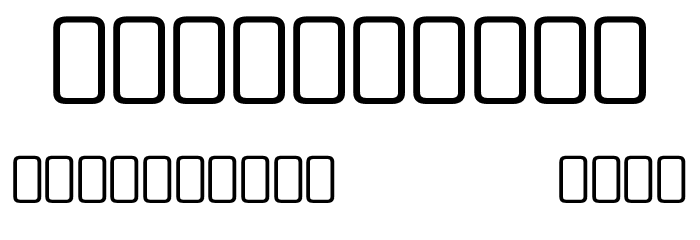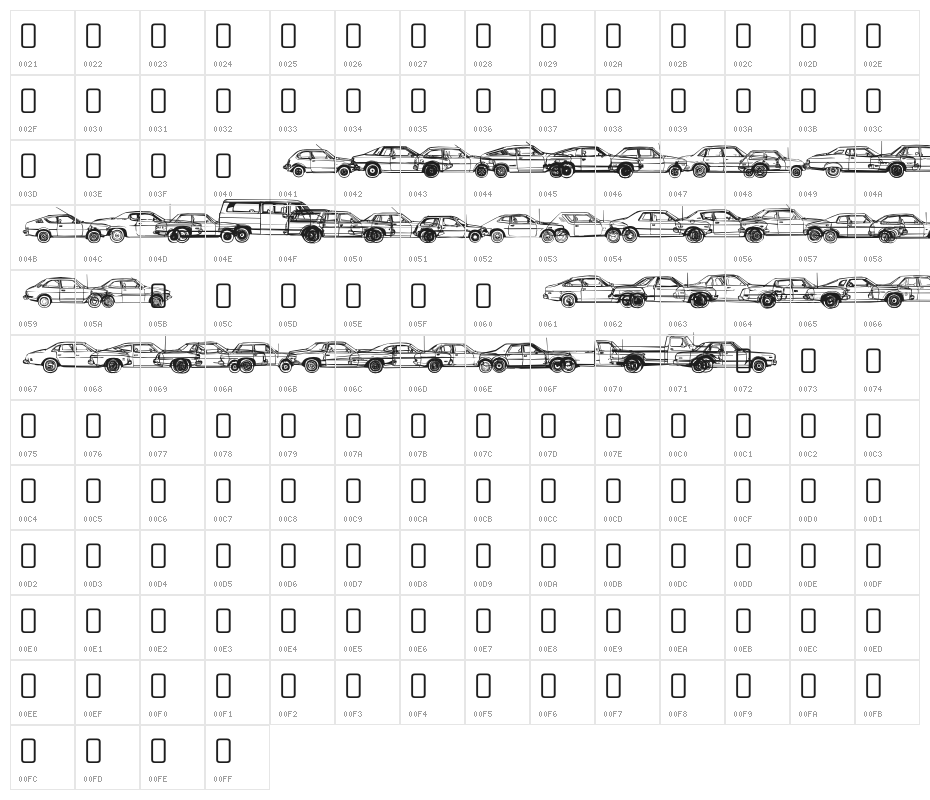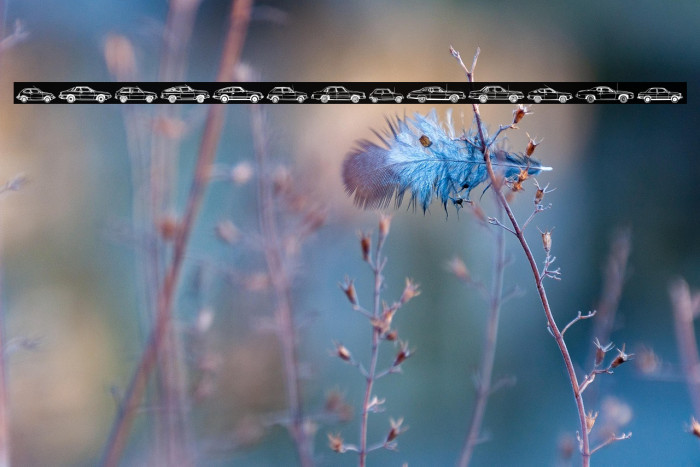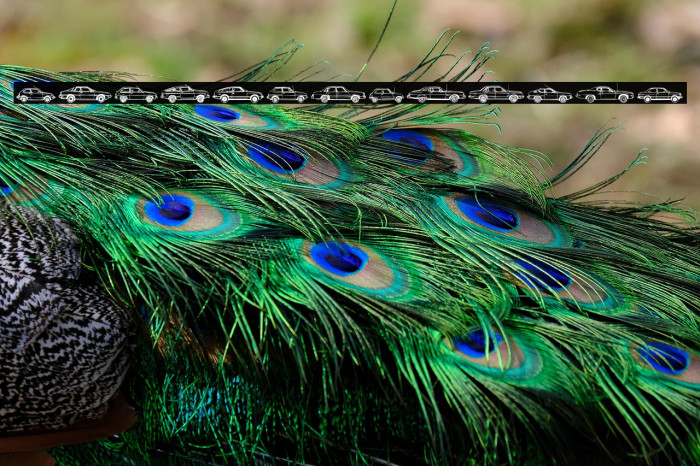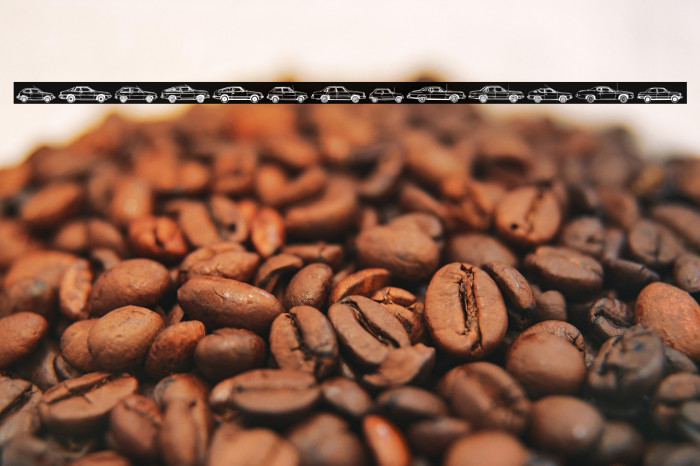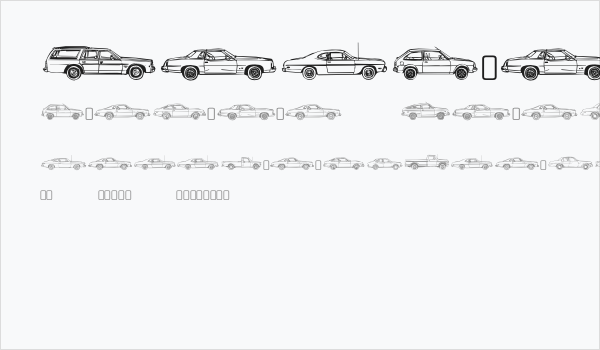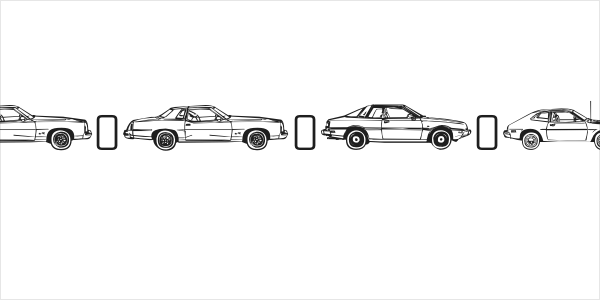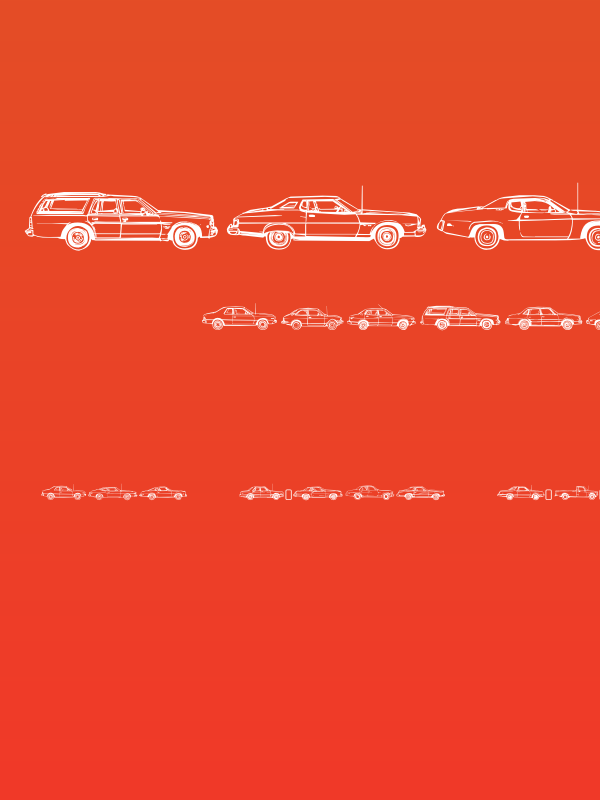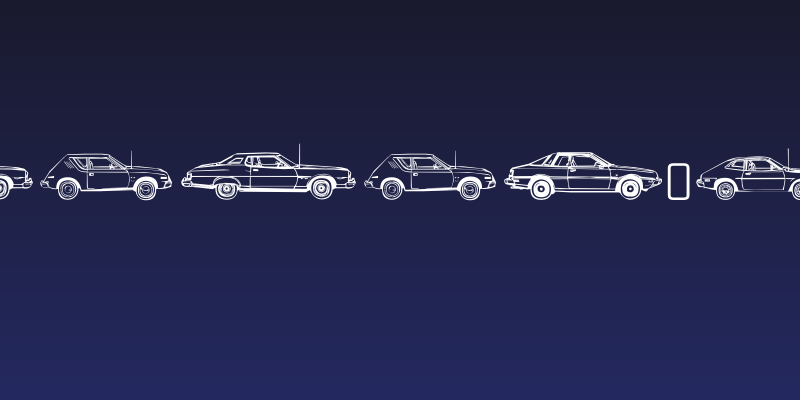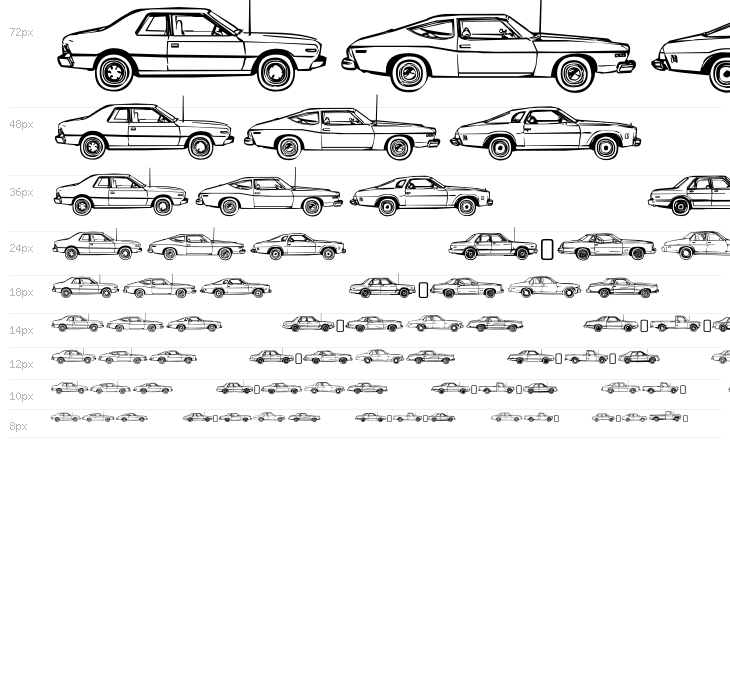
OilCrisisB-Regular Font
OilCrisisB-Regular Description
A decorative display font featuring detailed line art illustrations of vintage cars and trucks for each character, with some symbols represented as outlined rectangles. The style is playful and highly illustrative, focusing on automotive themes.
| Overall Style | Decorative, Retro, Playful |
| Use Case | Headlines, Posters, Themed Graphics |
| Proposed Projects | Automotive posters, retro event flyers, themed party invitations, novelty signage, educational materials about cars. |